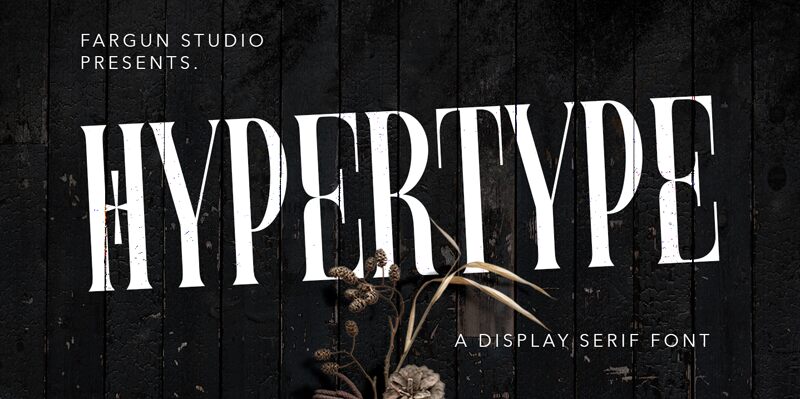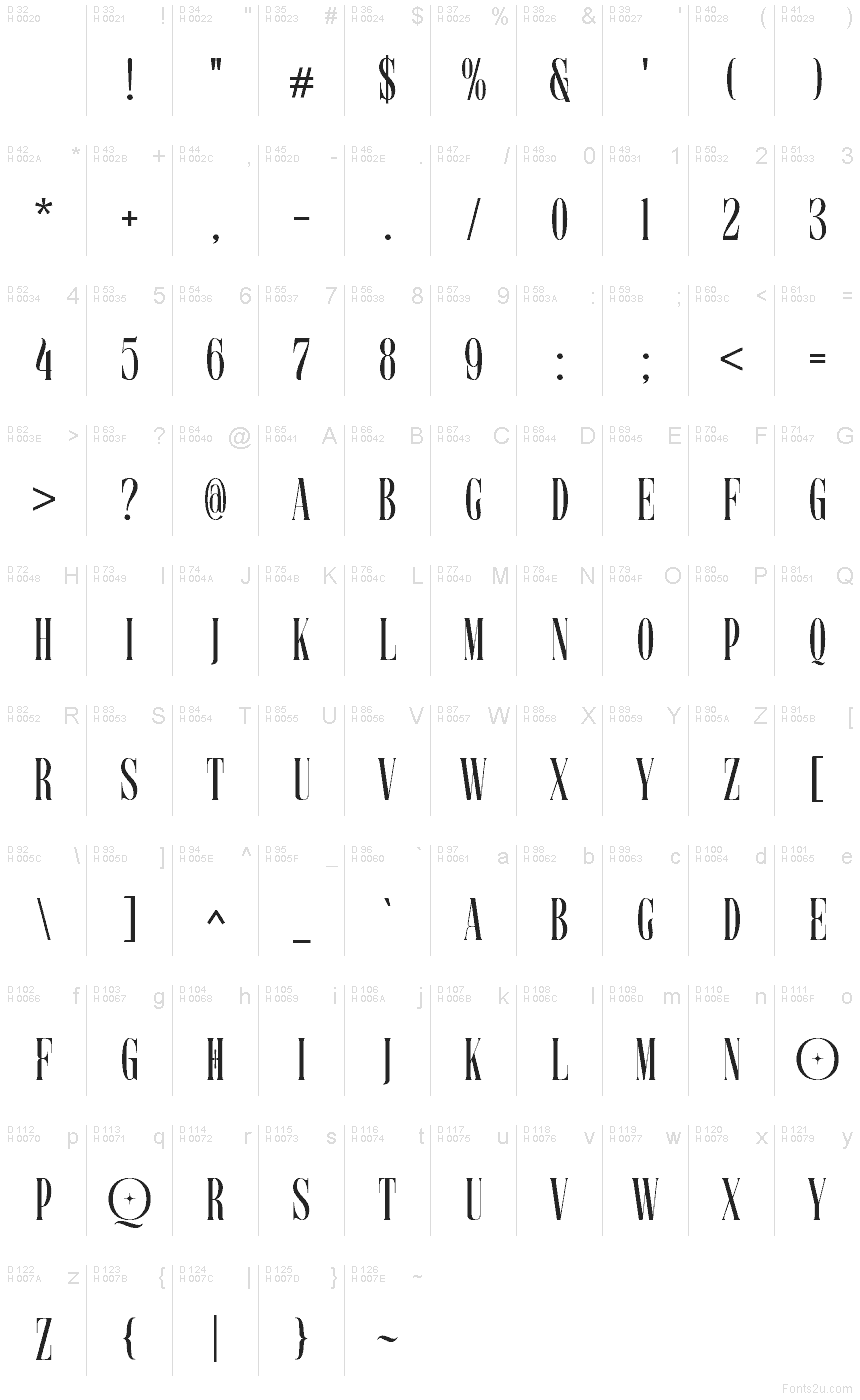
Hypertype
Hypertype font by Fargun Studio is a free serif typeface. It stands out with a tall, compressed silhouette and blade‑clean thins that slice between bold vertical ribs, giving each word a sleek, Art Deco snap. Letters feel glossy and inky, with sculpted curves that stack into a tight, theatrical rhythm on the line.
Using Hypertype, headlines hit hard without shouting, making it a natural fit for fashion branding, magazine covers, luxury packaging, poster titles, album art, and event invitations. This free font loves big sizes and a bit of extra tracking. Pair it with a quiet, neutral sans for copy to keep the spotlight steady.